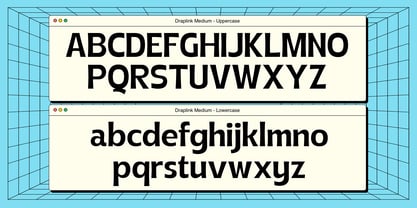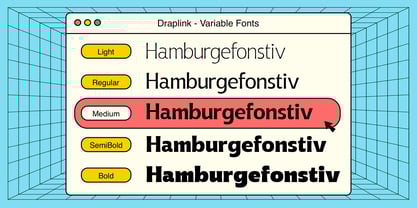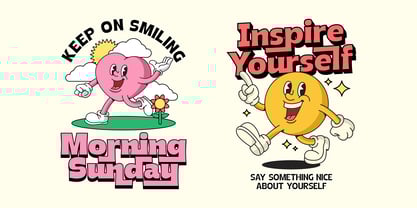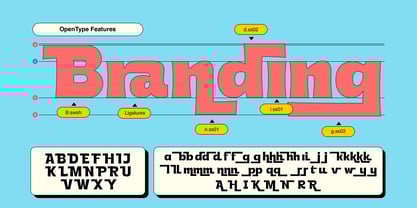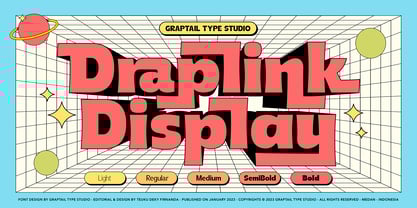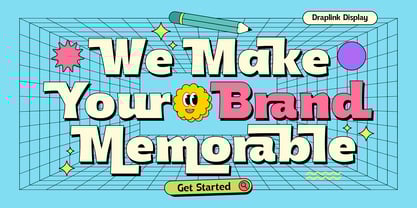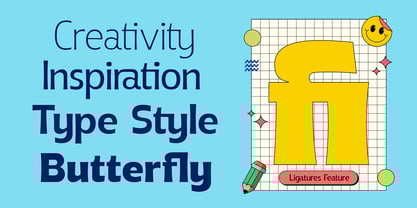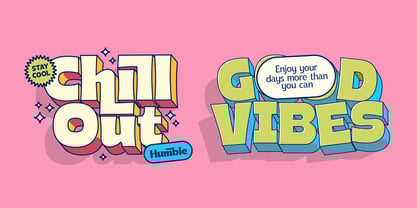
Draplink
by Graptail
The Draplink Font Family was designed by Teuku Deky Firnanda and published by Graptail. Draplink contains 5 styles and family package options. More about this family
Introducing Draplink, a retro-inspired font that evokes nostalgia from the 1950s to the 1990s. This font is perfect for creating vintage-themed designs and adding a touch of nostalgia and personality.
Draplink features a soft, sturdy design with bold corners and unique letter shapes. This font also has five variable fonts and alternative ligatures, allowing you to create many different looks with the same font.
Designers: Teuku Deky Firnanda
Foundry: Graptail